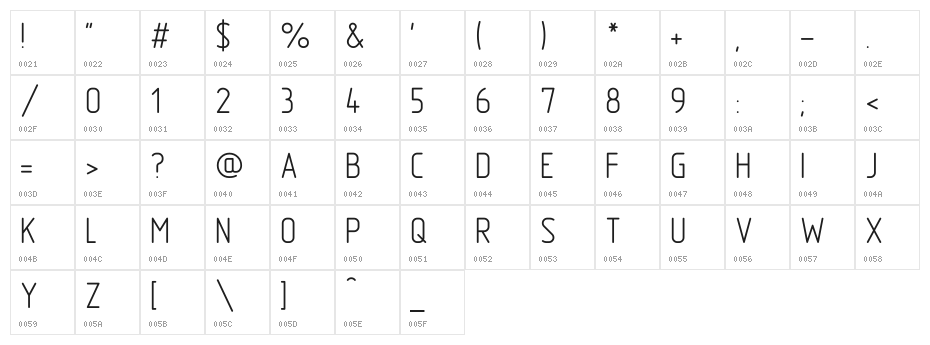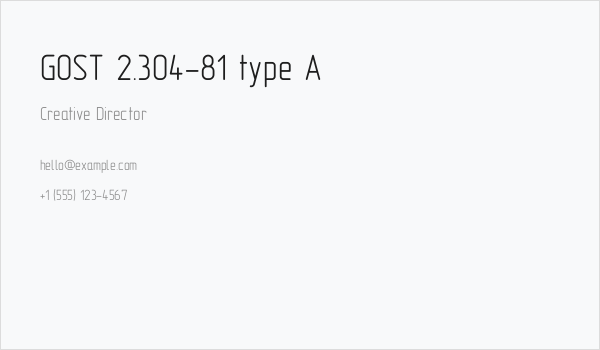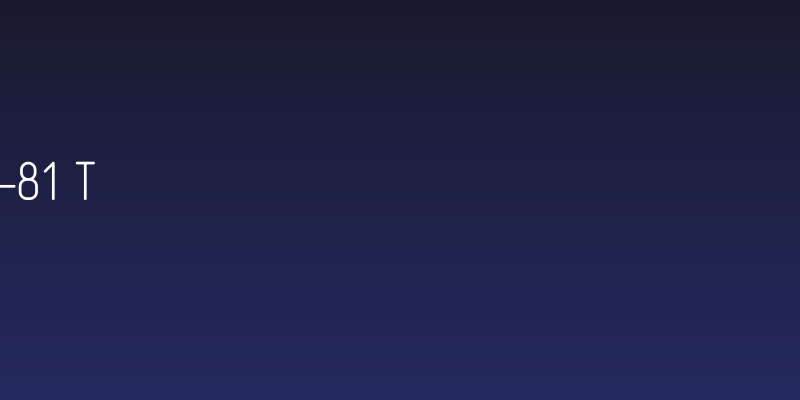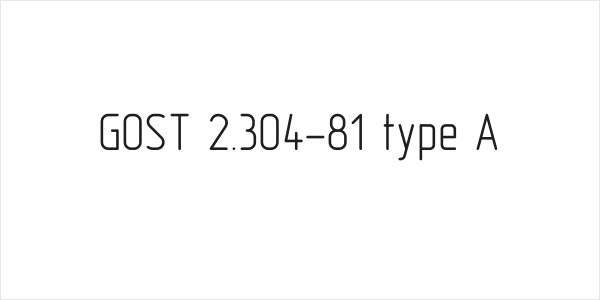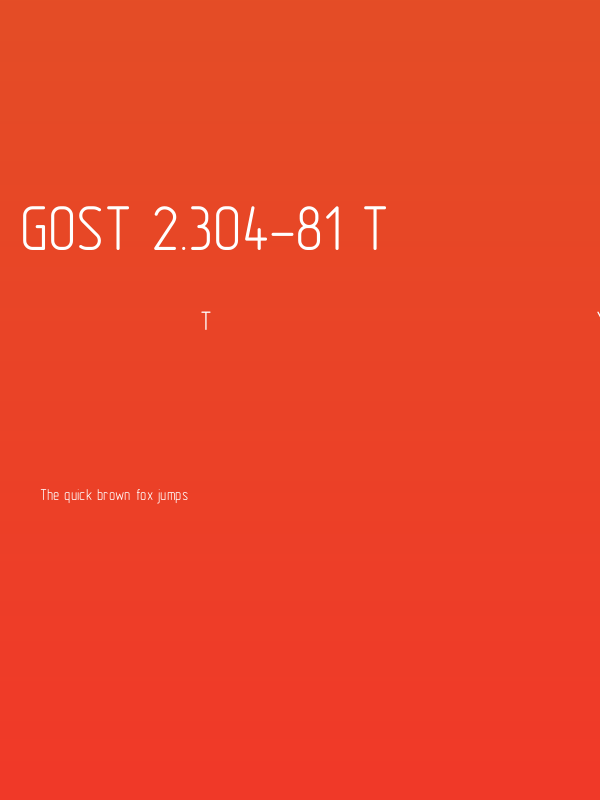
GOST 2.304-81 type A Font
GOST 2.304-81 type A Description
This font features a clean and geometric design, characterized by its uniform stroke width and rounded corners. The uppercase and lowercase letters maintain a consistent height and width, creating a harmonious appearance. The numerals are distinct and easily readable, with a modern touch that complements the overall style. Special characters are well-integrated, maintaining the font's sleek and streamlined aesthetic. The font's simplicity and clarity make it suitable for a variety of applications, ensuring legibility across different mediums.
| Use Case | Technical documents, Signage, Branding |
| Proposed Projects | Ideal for technical documents, signage, branding, and digital interfaces. |